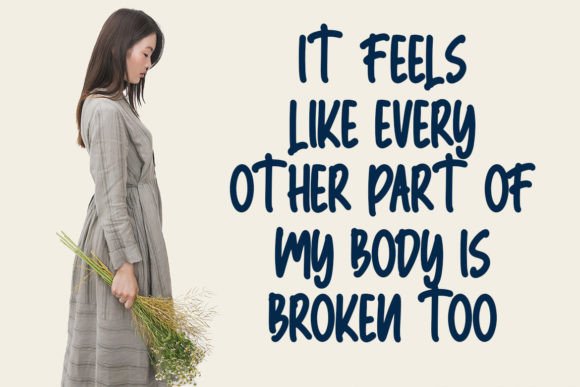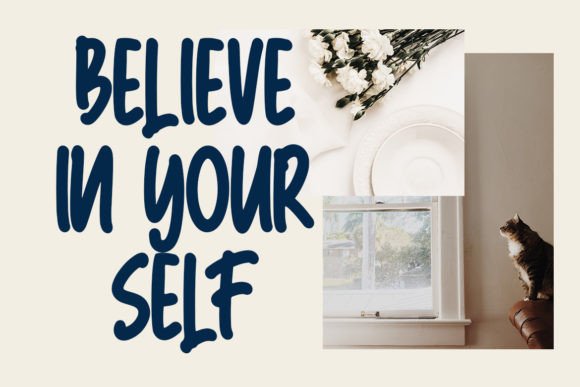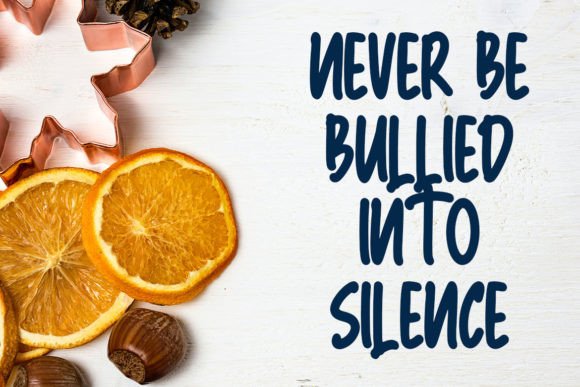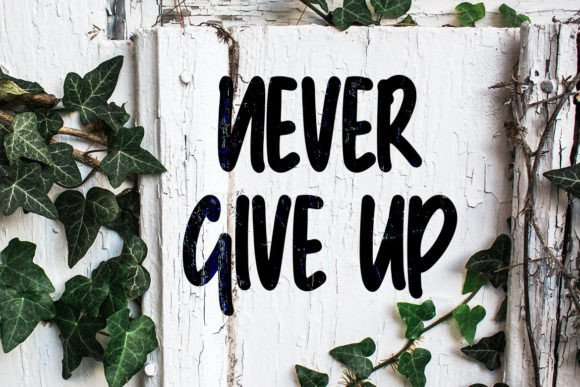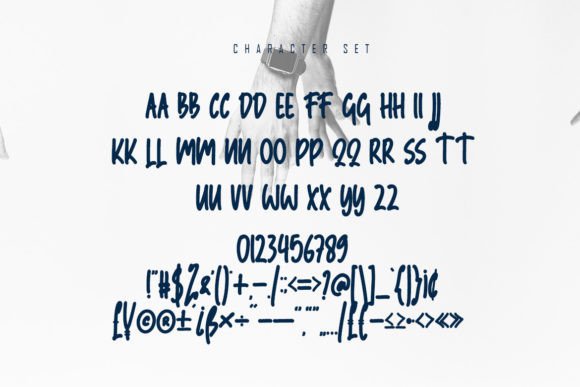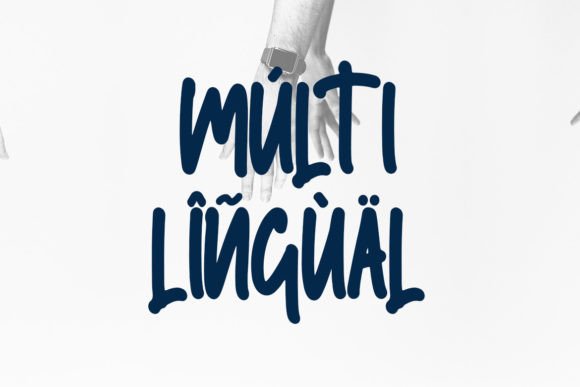
Introduction to Kobayu Font
Have you ever stared at a blank canvas, feeling the weight of creativity on your shoulders, desperate for that one font to elevate your project to the next level? This is where the magic happens – where a simple yet striking font can transform your design from ordinary to extraordinary. For designers, finding that perfect font is like discovering a hidden treasure, and I’m excited to introduce you to one that’s about to become your new favorite: the Kobayu Font.
This modern paint-brushed handwritten display font is more than just a pretty face; it’s a powerhouse of style and sophistication, capable of adding tons of character to your headlines and logotype projects. Whether you’re working on a free download or a high-end creative project, Kobayu Font is the perfect design resource to give your work a dynamic and confident touch.
Key Features of Kobayu Font
- Unique, hand-drawn design suitable for creative projects and artistic expressions
- High-quality font with a transparent background, ideal for designers and artists who want a clean and versatile design resource
- Includes multiple styles and weights, allowing for a wide range of creative applications
- Designed with a resolution of 300 DPI, suitable for print and digital use
- Perfect for designers who want a distinctive and eye-catching font for their next creative project
Honest Review: Kobayu Font
I recently had the chance to work with the Kobayu Font for a creative project and I must say, it’s been an interesting experience. This free download has some great qualities that make it a valuable design resource.
- High-quality font that’s perfect for a variety of design projects ✨
- Transparent background makes it easy to use with other design elements ✨
- May not be suitable for very large-scale design projects due to its limited character set ⚠️
- Some users may find the font’s unique style too quirky or overwhelming ⚠️
Overall, I’d say the Kobayu Font is a great addition to any designer’s toolkit, especially for smaller creative projects. While it may not be the best fit for every design need, its unique style and high quality make it a valuable resource to have in your arsenal.
Kobayu Font
Tips for Getting the Most Out of Kobayu Font
Use the Kobayu Font with a transparent background for a unique and eye-catching design.
Combine the Kobayu Font with other design elements for a cohesive and professional look.
The Kobayu Font is ideal for:
Business cards and marketing materials.
Graphic design and digital art.
Web design and e-commerce websites.
Alternatives to Kobayu Font
The Great Vibes Font is a beautiful, handwritten script font perfect for creative projects that require a personal touch. It’s ideal for designing posters, invitations, and other materials where a unique, high-quality font is necessary. Great Vibes Font offers a free download option, making it an excellent alternative to Kobayu Font for designers on a budget.
When to use: Creative projects, posters, invitations, and materials requiring a personal touch.
Comparison to Kobayu Font: Great Vibes Font has a more elegant and refined feel compared to Kobayu Font’s playful and casual vibe.